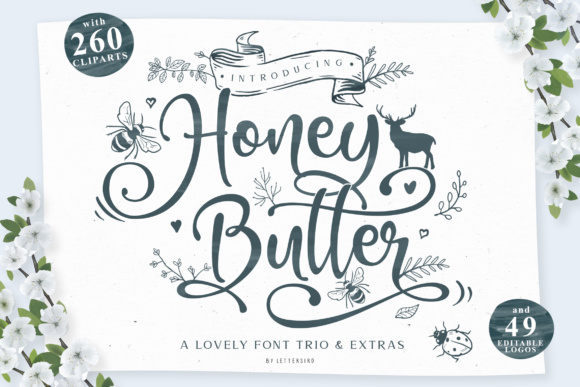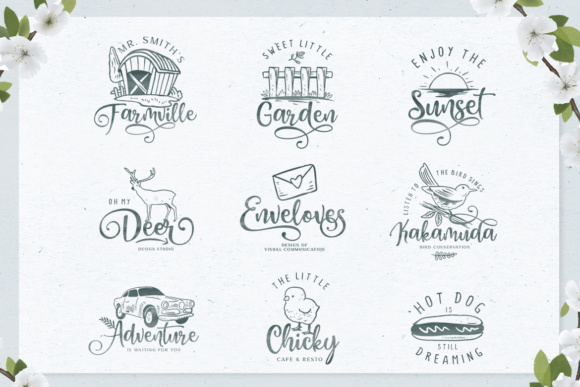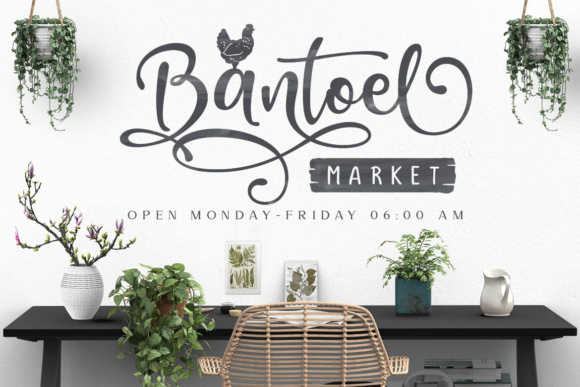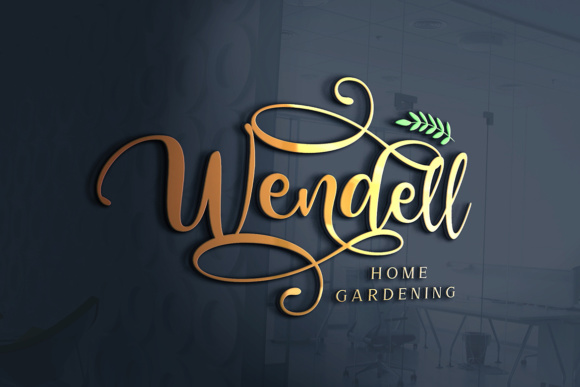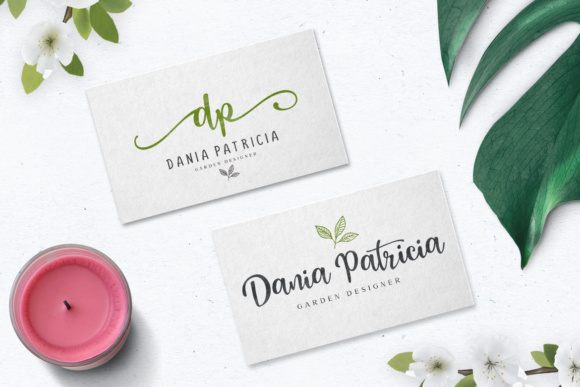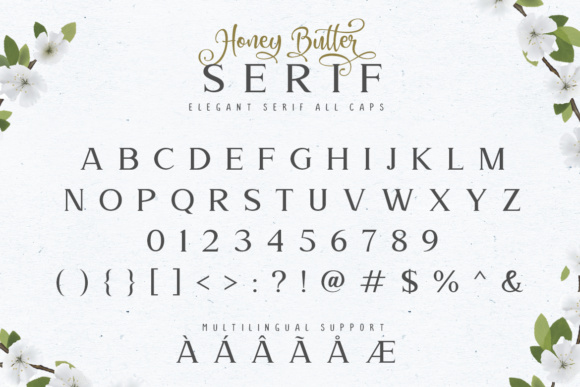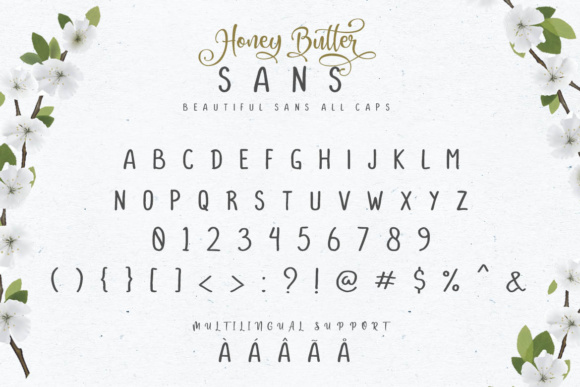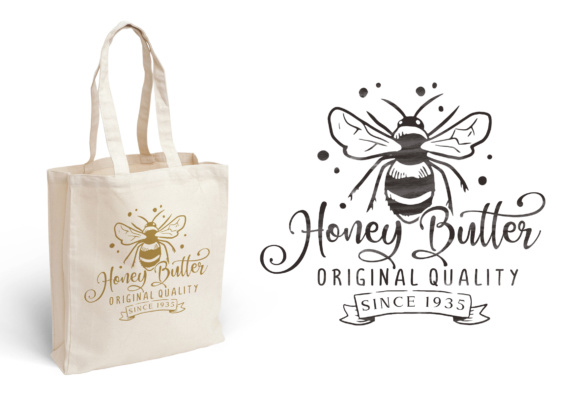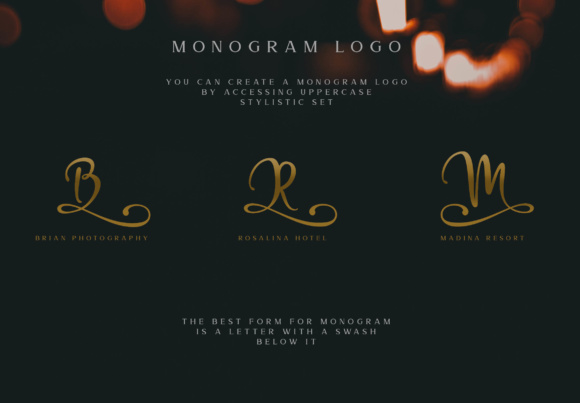
Honey Butter Trio Font
About Honey Butter Trio Font
The Honey Butter is a beautiful typeface. It has a feminine and elegant look which is great for logos, invitations and blogs, but can also be used to make a striking headline.
The Honey Butter font comes in 4 versions: Clean Script, Rough Script, Clean Sans & Rough Sanes.